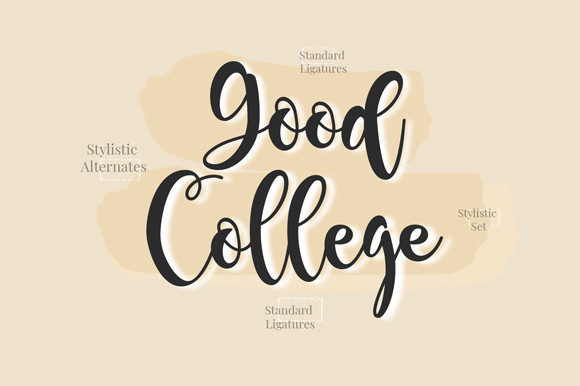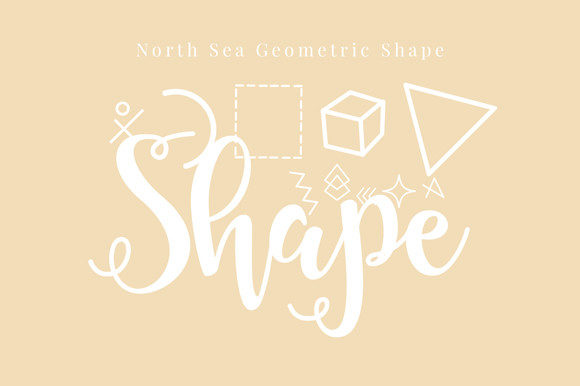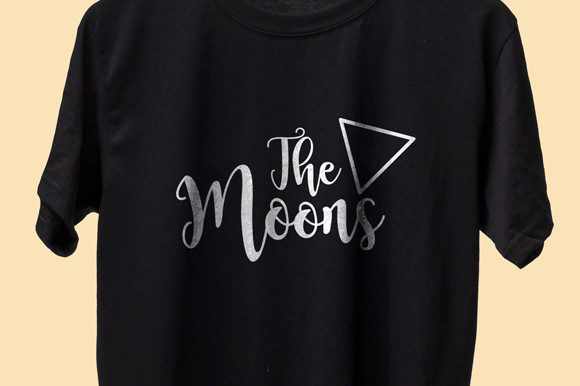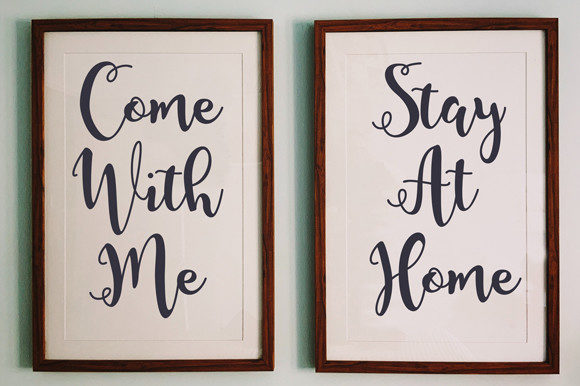
Introduction to North Sea Font
Imagine you’re working on a creative project, and you’re struggling to find the perfect font to match your vision. You’ve searched high and low, but nothing seems to capture the essence of your design. That’s when you stumble upon the North Sea Font – a stunning script font that will elevate your work to new heights.
With its delicate, cursive strokes and intricate details, the North Sea Font is the perfect addition to any designer’s library. Whether you’re working on a free download or a commercial project, this high-quality font is sure to make a statement. Its transparent background allows for seamless integration with any design, making it an invaluable resource for creative projects. And with its PUA encoding, accessing all glyphs and swashes is a breeze, giving you the freedom to experiment and push the boundaries of your design.
- Unique, hand-drawn design with a transparent background, allowing for easy customization.
- Features a large character set, including uppercase and lowercase letters, numbers, and punctuation marks.
- Suitable for a wide range of creative projects, from digital designs to print materials, and everything in between.
I recently came across the North Sea Font and was immediately drawn to its unique aesthetic. As a designer, I’m always on the lookout for high-quality fonts that can elevate my creative projects. In this review, I’ll share my thoughts on what works well and what could be improved.
- The North Sea Font has a transparent background, making it easy to layer over images and achieve a seamless look.
- The font’s high-quality design makes it perfect for a wide range of creative projects, from logos to editorial layouts.
- It’s a great design resource for anyone looking to add a touch of elegance to their work.
While the North Sea Font is a great addition to any designer’s toolkit, it’s worth noting that it may not be suitable for all projects. The font’s unique style may not be to everyone’s taste, and some users may find it too ornate for certain applications.
Overall, I think the North Sea Font is a great resource for designers who want to add a touch of sophistication to their work. With its high-quality design and transparent background, it’s a great choice for a wide range of creative projects.
For the best results, use North Sea Font on a transparent background to create a unique and eye-catching design. This font is perfect for creative projects, such as logos, graphics, and social media posts. You can also use it as a design resource for your next project.
North Sea Font is ideal for a variety of design projects, including:
– Logos and branding materials
– Social media graphics and posts
– Infographics and data visualizations
– Brochures and flyers